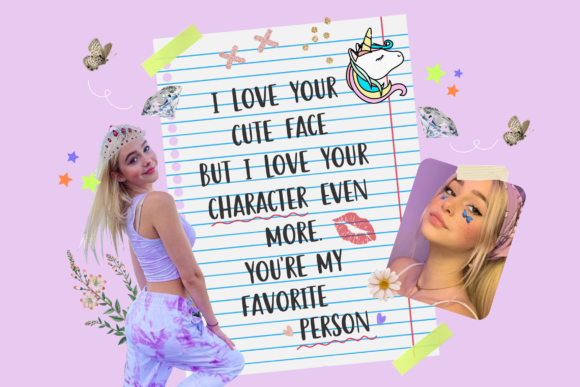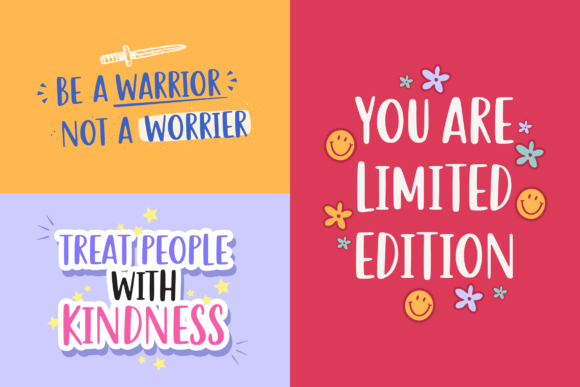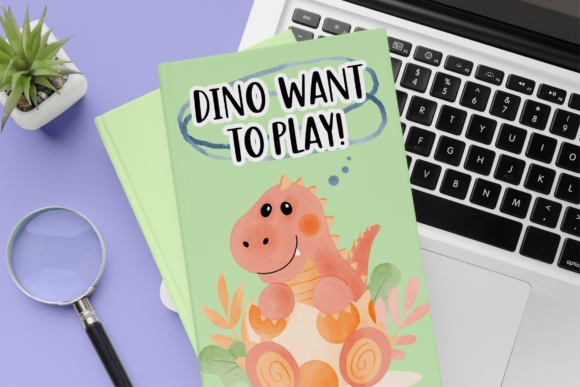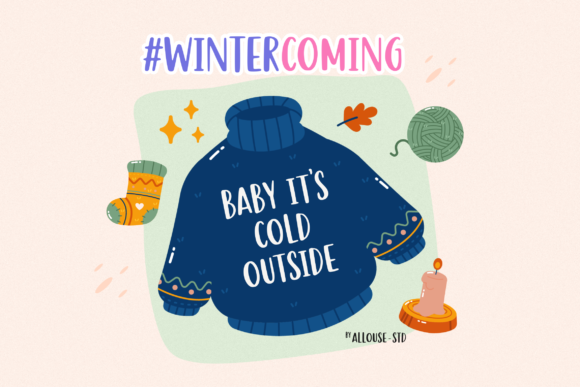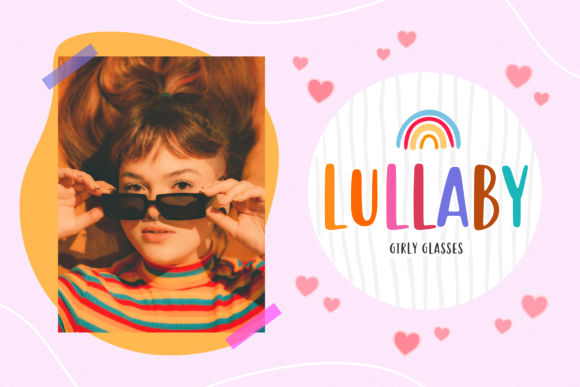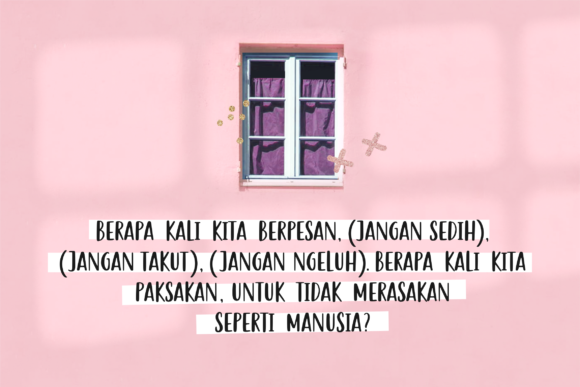
Introduction to Fachristar Font
Fachristar is a clean and friendly display font.
Fachristar is perfect for product packaging, branding project, magazine covers, social media, wedding, or just used to express words above the background .